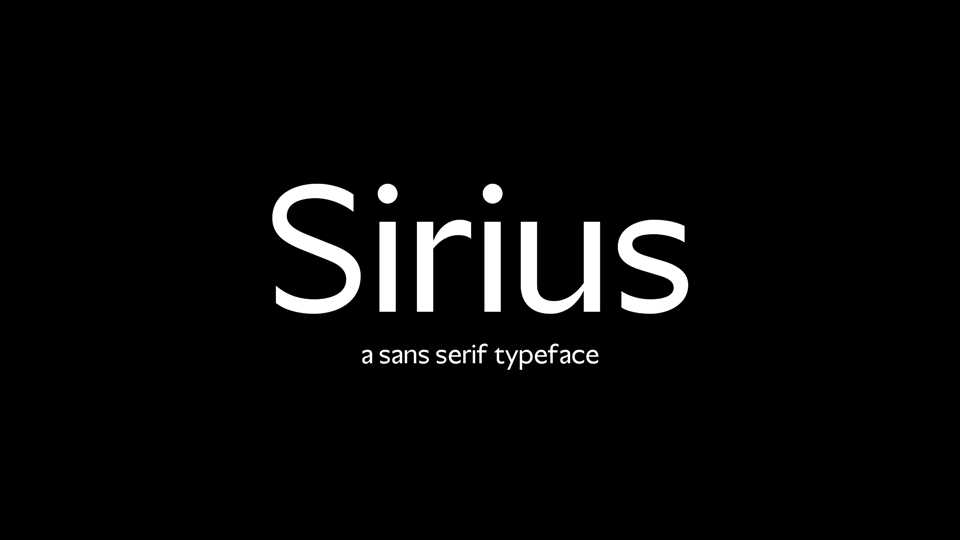
Download Sirius font, a modern sans serif typeface with a strong and clean appearance. Sirius works great for body texts and small fonts usages.
Designer: Laurent Müller